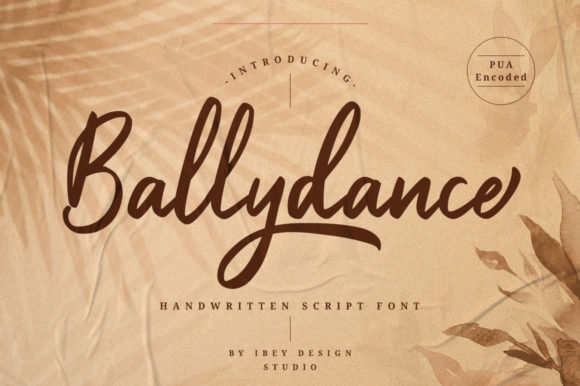
Unleash the Enchantment of Ballydance: A Script Font that Dances with Grace
In the realm of typography, where letters take form and meaning intertwines, there exists a font that captivates hearts and ignites imaginations—Ballydance. This enchanting script, crafted with the utmost care and precision, invites you on a journey of elegance and charm.
Step into a world where words dance gracefully across the page, as if guided by an unseen hand. Ballydance's fluid strokes and playful flourishes evoke a sense of movement and energy, drawing the eye with their captivating allure. Each letter is a work of art, meticulously designed to evoke a sense of joy and wonder.
With Ballydance, your words will blossom into a captivating display of artistry. Whether you're crafting wedding invitations that whisper of romance or designing social media posts that demand attention, this font will elevate your creations to new heights of beauty and sophistication.
Beyond its aesthetic appeal, Ballydance is a font of versatility. Its playful nature lends itself to a myriad of projects, from whimsical logos and branding to enchanting posters and flyers. Imagine your business cards adorned with the graceful strokes of Ballydance, leaving an unforgettable impression on clients and colleagues alike.
But Ballydance truly shines when it comes to wedding stationery. Its delicate curves and romantic undertones make it the perfect choice for creating invitations, programs, and menus that capture the essence of your special day. Your guests will be captivated by the elegance and charm of Ballydance, as it sets the tone for a truly magical celebration.
This remarkable font is PUA encoded, ensuring effortless access to a treasure trove of glyphs and swashes. Unleash your creativity and explore the endless possibilities of Ballydance, transforming your designs into masterpieces that leave a lasting impression.
Join the growing number of designers and creatives who have succumbed to the allure of Ballydance. Let your imagination soar as you witness the transformative power of this font, turning ordinary words into extraordinary works of art. Embark on a creative journey like no other, and discover the endless possibilities that await you with Ballydance.